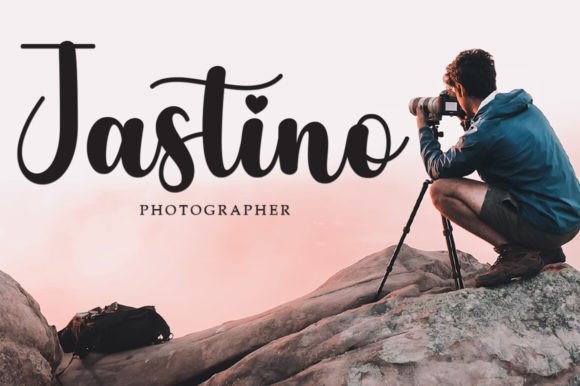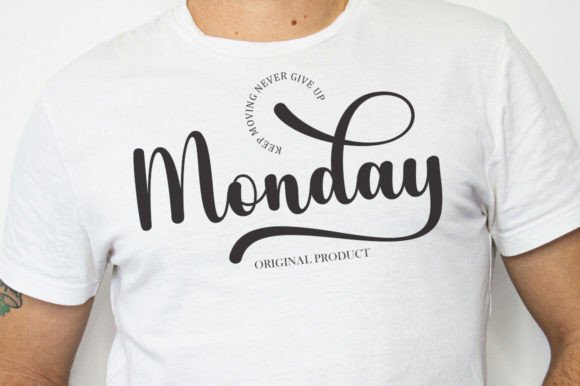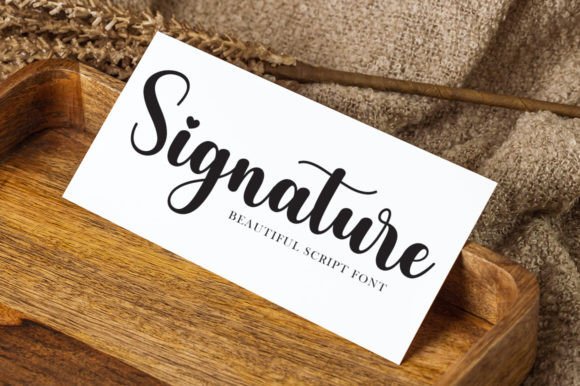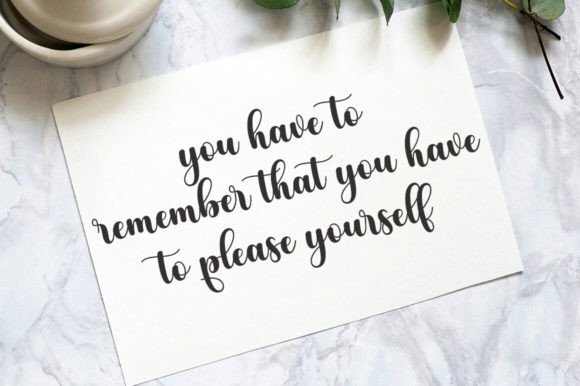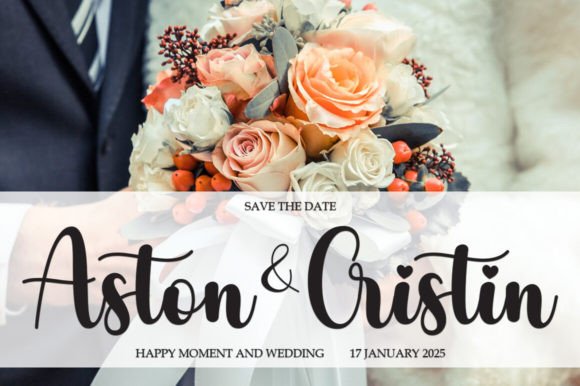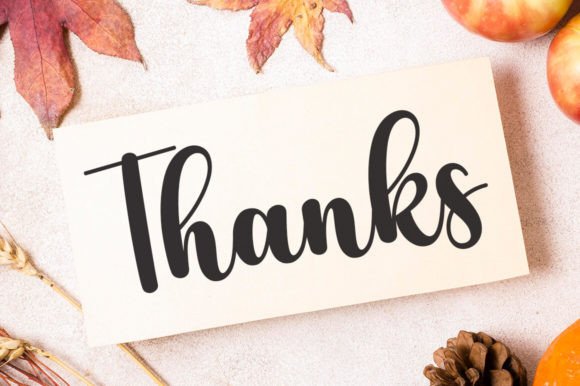
Introduction to Micky Font
Have you ever stared at a blank canvas, struggling to find the perfect font to bring your creative project to life? The blank space can be daunting, but what if you had a design resource that could effortlessly elevate your vision? Enter the Micky Font – a game-changing, high-quality font that’s poised to revolutionize your design endeavors.
With its beautifully crafted glyphs and sleek lines, the Micky Font exudes an air of sophistication and elegance. Whether you’re working on a free download project or a high-stakes design brief, this versatile font is sure to impress. Its transparent background and modern flair make it the perfect addition to any creative project.
So why is the Micky Font so valuable to designers? Its unique blend of calligraphic influence and contemporary style makes it a standout in the world of design resources. Whether you’re a seasoned pro or just starting out, this charming font is sure to become your go-to design companion.
Key Features of Micky Font
- High-quality vector design for a creative project: Micky Font is a beautifully crafted font designed for use in various creative projects, including graphics, logos, and digital art.
- Unique, hand-drawn design: Micky Font features a unique, hand-drawn design that adds a touch of personality and whimsy to any creative project.
- Perfect for designers and artists: Micky Font is a versatile design resource that is perfect for use in a variety of creative projects, from logos and graphics to digital art and design.
Honest Review: Micky Font
I recently had the chance to work with Micky Font, and I must say it’s been a game-changer for my creative project. As a designer, I’m always on the lookout for high-quality design resources that can elevate my work, and Micky Font definitely fits the bill.
What works well with Micky Font is its versatility. I can use it for anything from logos to typography, and it always looks great. The transparent background is also a huge plus, making it easy to incorporate into any design. Plus, it’s free to download, which is a huge bonus. ✨
- Perfect for logos and typography
One thing that’s a bit limiting is the limited character set. While it’s not a huge deal for most projects, it can be a problem if you’re working with a lot of text. ⚠️
Overall, I’m really impressed with Micky Font. It’s a great addition to any designer’s toolkit, and I’d highly recommend it to anyone looking for a high-quality design resource.
Micky Font
Introduction to Micky Font
Micky Font is a high-quality design resource perfect for creative projects. Its unique style and versatility make it an excellent addition to any design.
Tips for Getting the Most Out of Micky Font
To get the most out of Micky Font, use it with a transparent background to create a clean and modern design. Experiment with different font sizes and colors to add visual interest to your project.
Micky Font is perfect for use in branding materials, social media graphics, and digital advertisements. Its unique style makes it stand out from other fonts, and its high-quality design ensures that it looks great on any device.